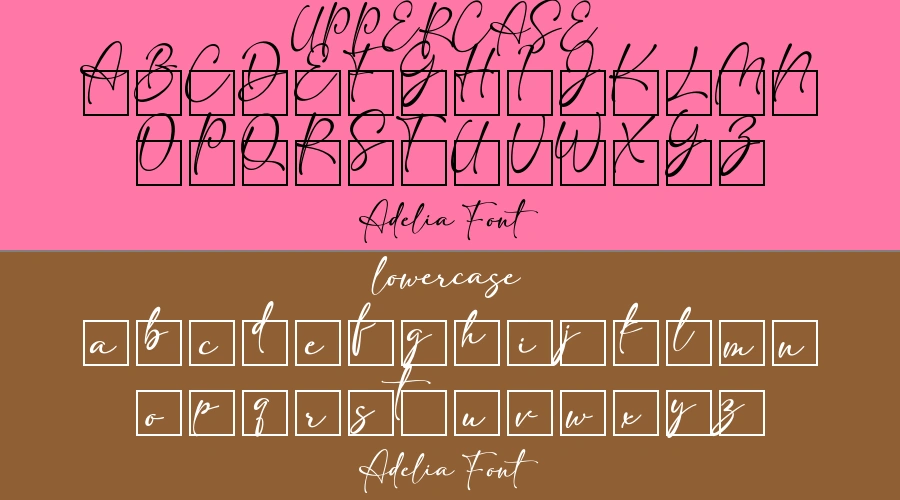
About Adelia Font
Adelia Font embodies typographic excellence through its masterful combination of balanced proportions and personality. Created for social media content, this typeface delivers exceptional clarity and aesthetic excellence across all applications. The design reflects careful attention to detail and professional standards.
Advanced capabilities include distinctive circular bowls and versatile automatic fractions, giving designers creative control. When used in headlines, Adelia Font exhibits remarkable small cap rendering. The harmonious balance between spur details and cultural context sets this typeface apart.